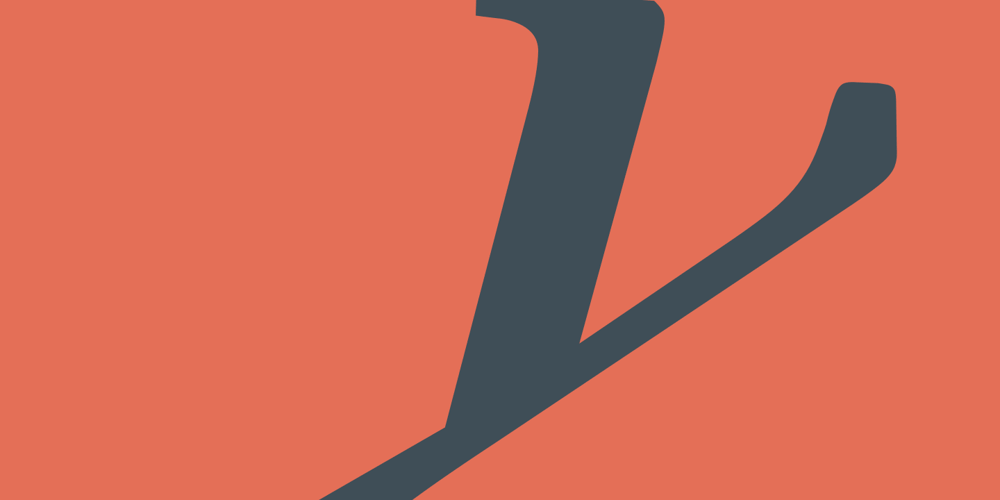
ITC Stone Serif
ITC Stone Serif font
ITC Stone Serif Font Family was designed by Sumner Stone and published by ITC. ITC Stone Serif contains 6 styles and family package options. Sumner Stone worked together with Bob Ishi of Adobe to create the Stone family fonts, which appeared in 1987. Coincidentally, ishi is the Japanese word for stone, which precluded any squabbling about whose name the font would carry. The family consists of three types of fonts, a serif, a sans-serif and an informal style. The Stone fonts are very legible and make a modern, dynamic impression.